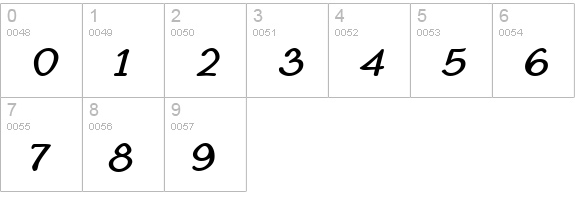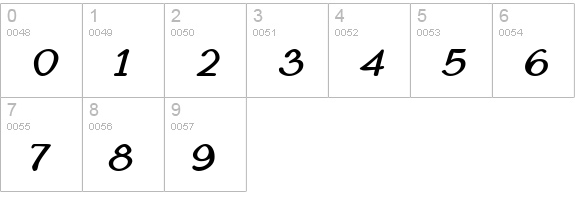
KampIngrianaH BoldItalic Font Details
Introducing KampIngrianaH BoldItalic font, a striking and captivating typeface that will effortlessly elevate your designs to new heights. This unique font combines boldness and elegance with a touch of playfulness, making it perfect for a wide range of creative projects. With its bold and italicized letterforms, KampIngrianaH BoldItalic brings a dynamic and eye-catching element to any design. Whether you're working on a logo, branding, packaging, or even web design, this font will add a touch of sophistication and personality. One of the best things about KampIngrianaH BoldItalic is that it is freely available to download at FontsMarket.com. This means that you can easily access this font without breaking the bank. With just a few clicks, you can enhance your designs with this stunning typeface, creating a lasting impression on your audience. The versatility of KampIngrianaH BoldItalic font allows it to adapt to various design styles and themes. Its bold and italicized characteristics make it ideal for headlines, titles, and emphasis, while its distinctive curves and swashes add elegance and flair to any project. Furthermore, KampIngrianaH BoldItalic font is designed with legibility in mind, ensuring that your text remains clear and readable, even at smaller sizes. This makes it a perfect choice for both print and digital projects, where readability is crucial. So, why wait? Unleash your creativity and download KampIngrianaH BoldItalic font today from FontsMarket.com. With its boldness, elegance, and playful charm, this font will take your designs to the next level. Whether you're a professional designer or a hobbyist, this freely available font is a must-have in your typography collection.